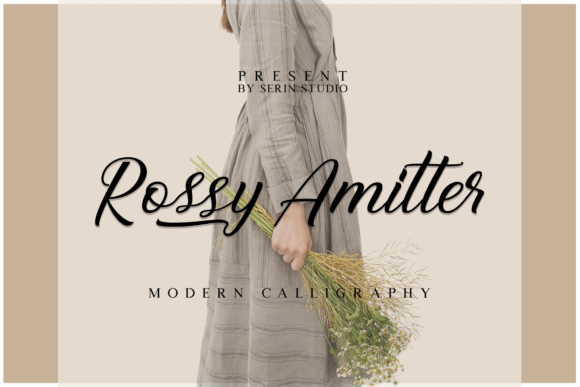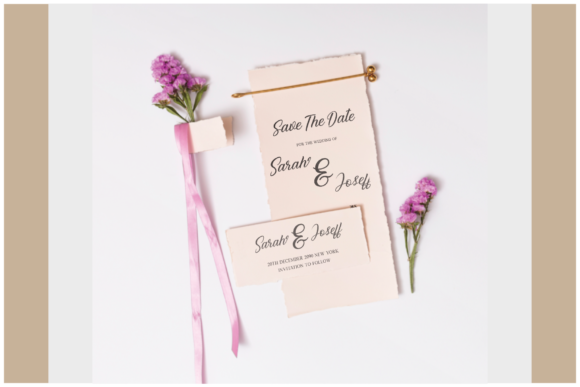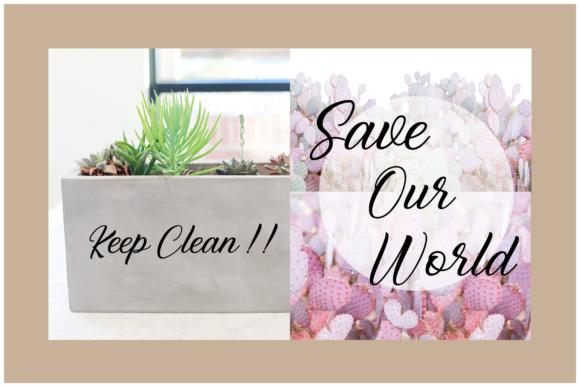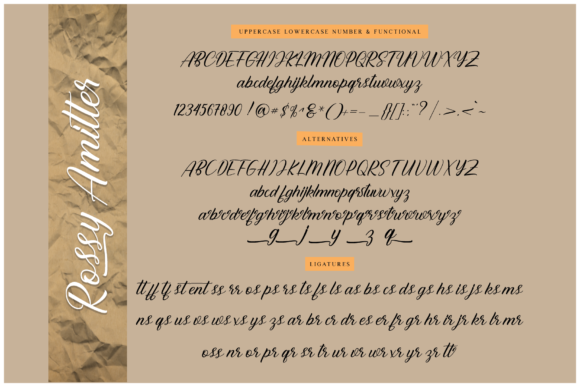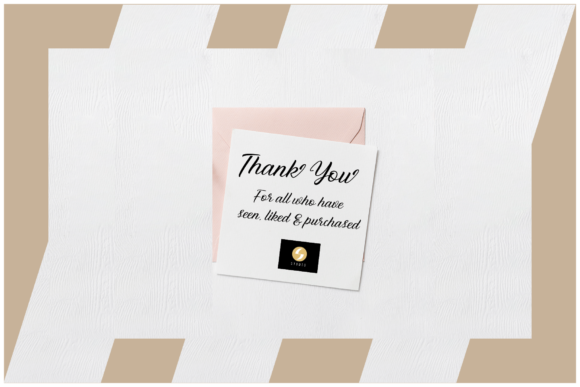
Rossy Amitter Font
Rossy Amitter is a stunning handwritten font that updates classic calligraphy with a modern twist. It will add an authentic feel to any design project.